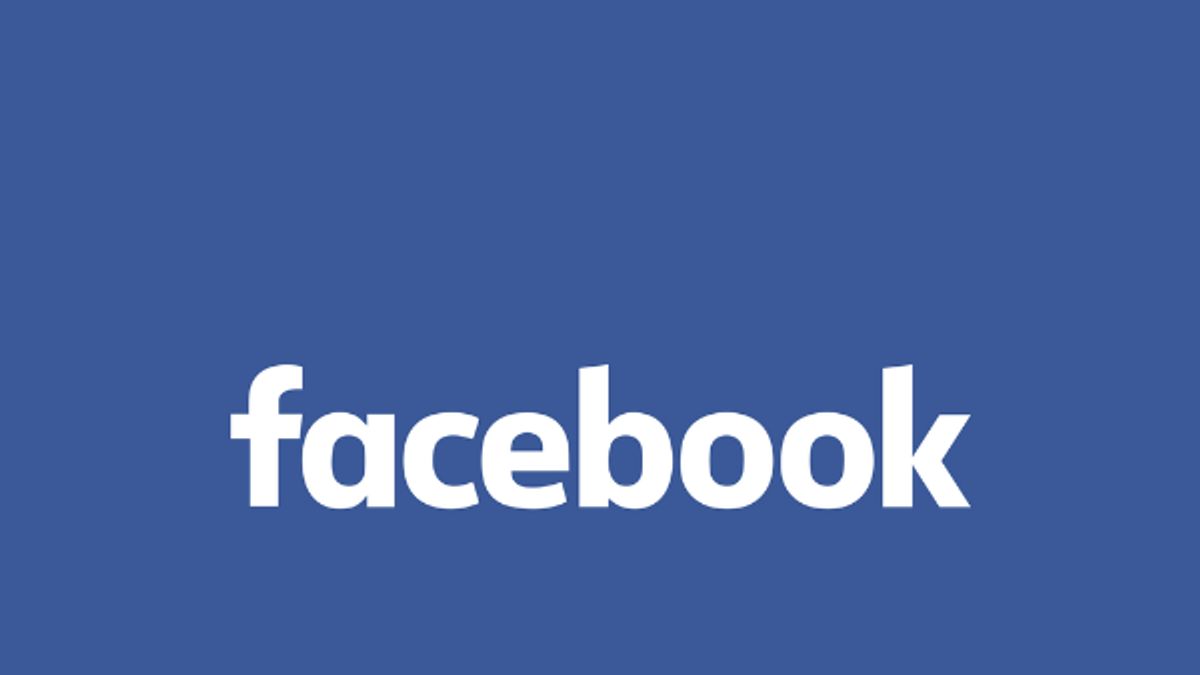
The Facebook logo uses the Klavika font, designed by Process Type Foundry in 2004.
The font was then altered slightly by Cuban Council in order to create the now-iconic logo design.
Alterations included:
• Straightening the A to meet with the F
• Widening the C
• Reconnecting the K
What Is the Default System Font On Facebook?
Within the Facebook system, the following standard sans serif font options are used:
• Roboto for Android
• Segoe UI for Windows
• San Francisco for iOS/macOS
• Helvetica Neue
Facebook's font choices are meant to emphasize legibility over anything else, prioritizing ease of reading across devices and allowing users of all backgrounds to browse
comfortably. Various font sizes are used within the platform, and the default font size can be adjusted by individual users in accessibility preferences.
Similar Fonts To Klavika
If you're trying to get the same look as Facebook's logo font, Klavika, there are a few font dupes to choose from to replicate the custom typeface:
What font is closest to Facebook?
What font is used in social media?
Does Facebook use Helvetica?
Yes, Facebook uses Helvetica Neue within the platform.